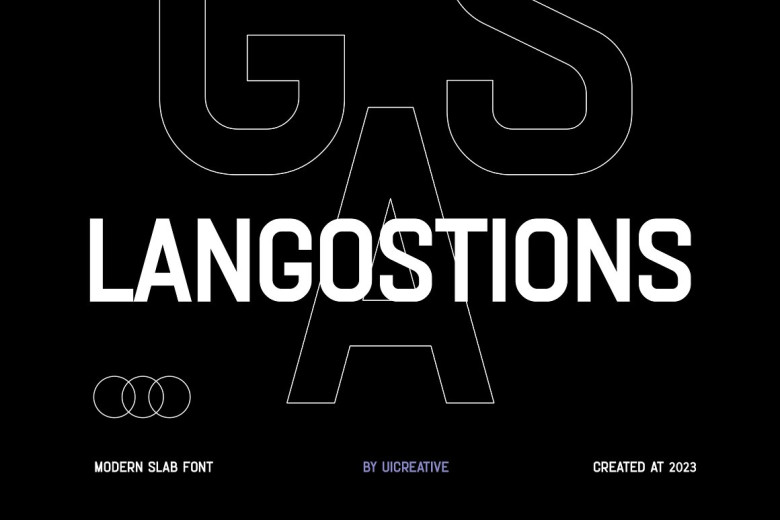
Langostions Font
Langostions is a modern sans serif font that feels beautiful classical, elegant, and modern. This font is ideally suited for a wide variety of projects, such as signature, stationery, logo, wedding, typography quotes.
Langostions Sans Serif Font